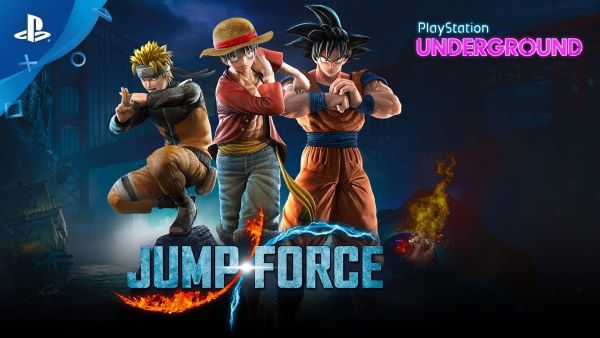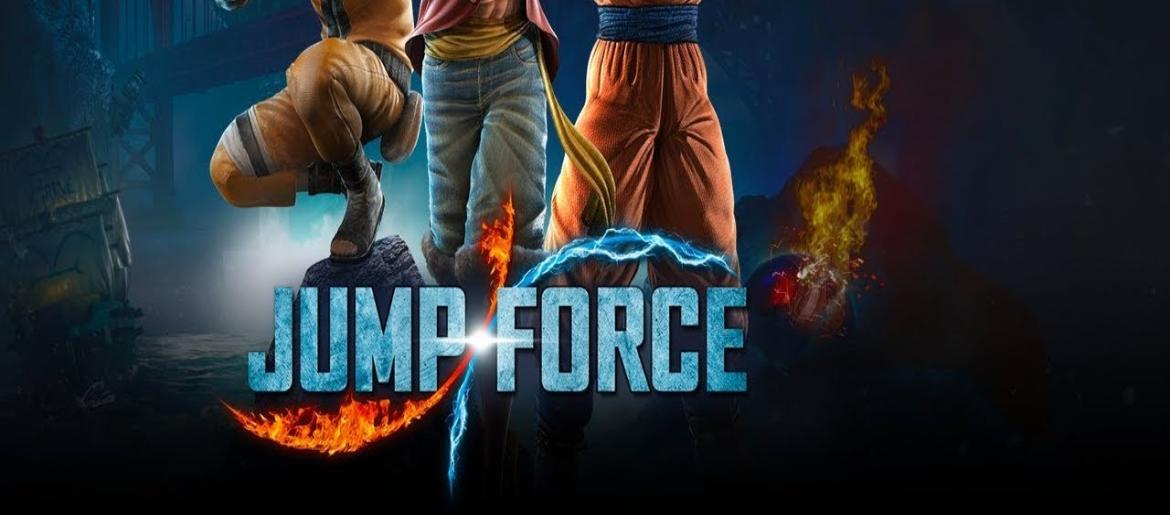
Jump Force Font
Jump Force brings together iconic anime characters in explosive battles, and its bold typography perfectly captures that high-energy spirit. The font used in the game’s branding delivers a powerful, action-packed aesthetic that resonates with fans worldwide.